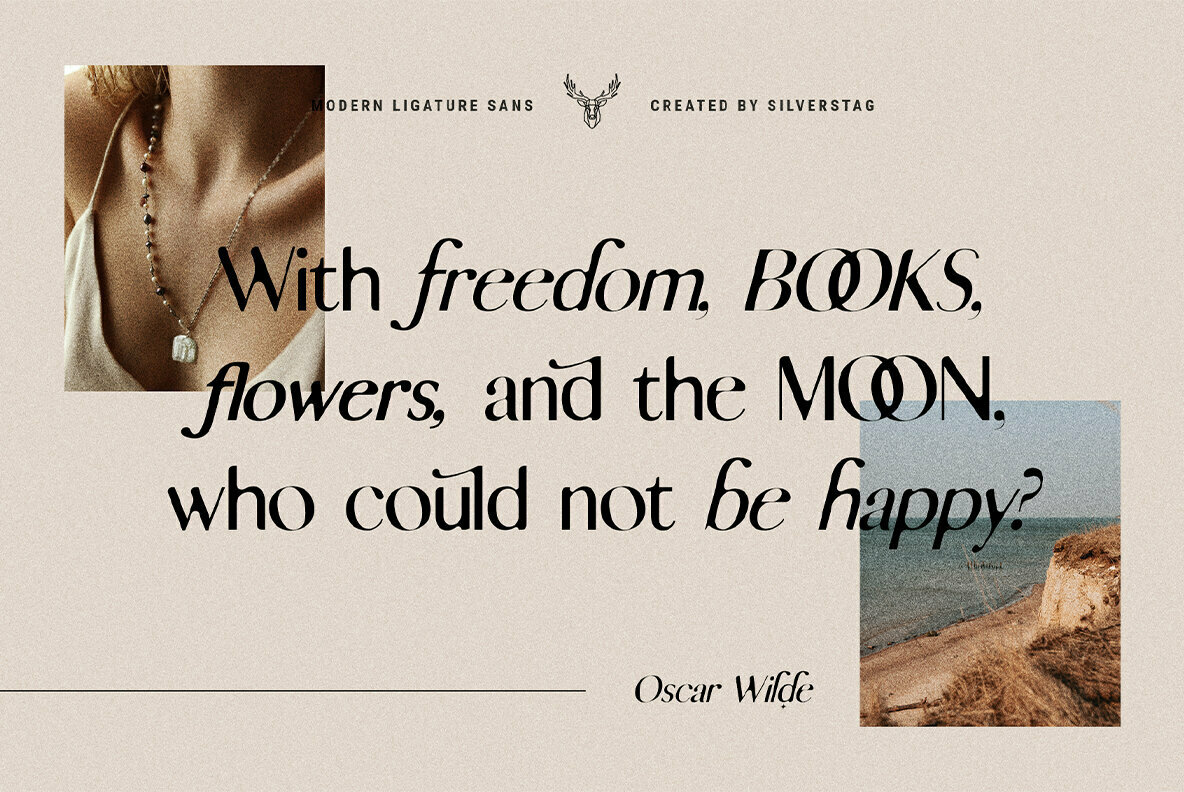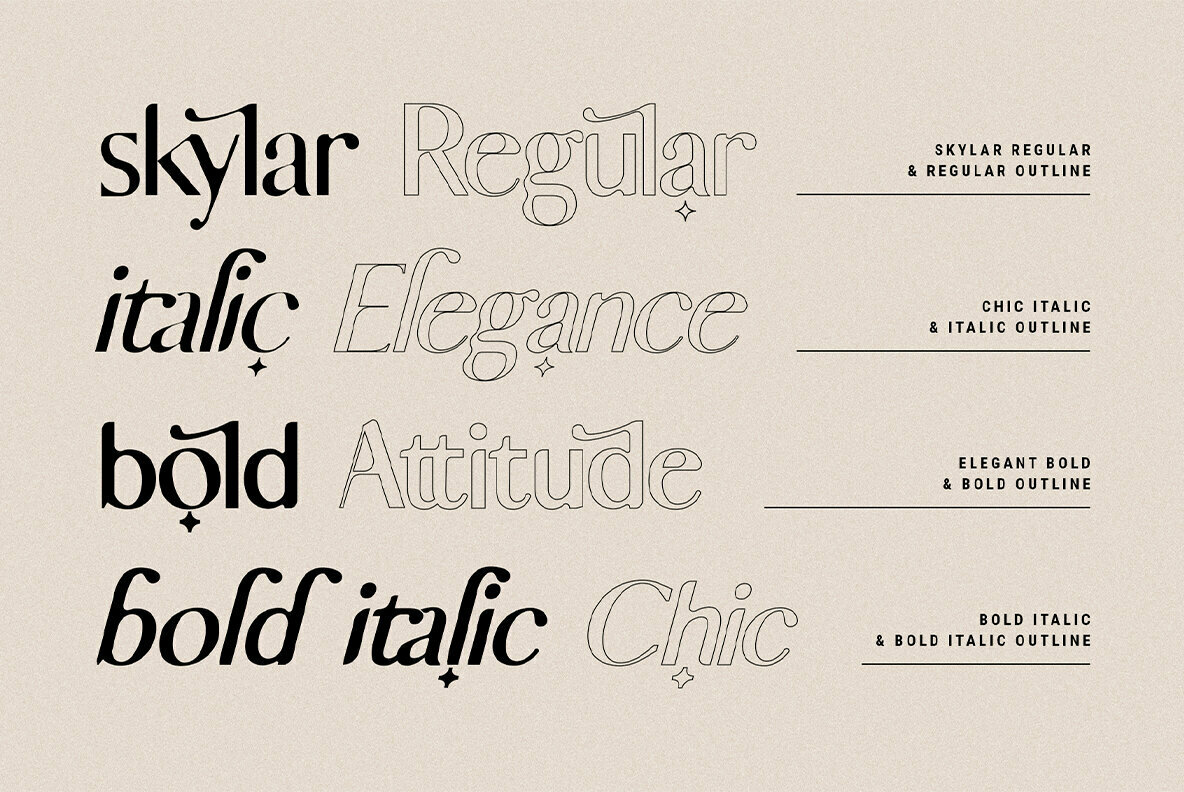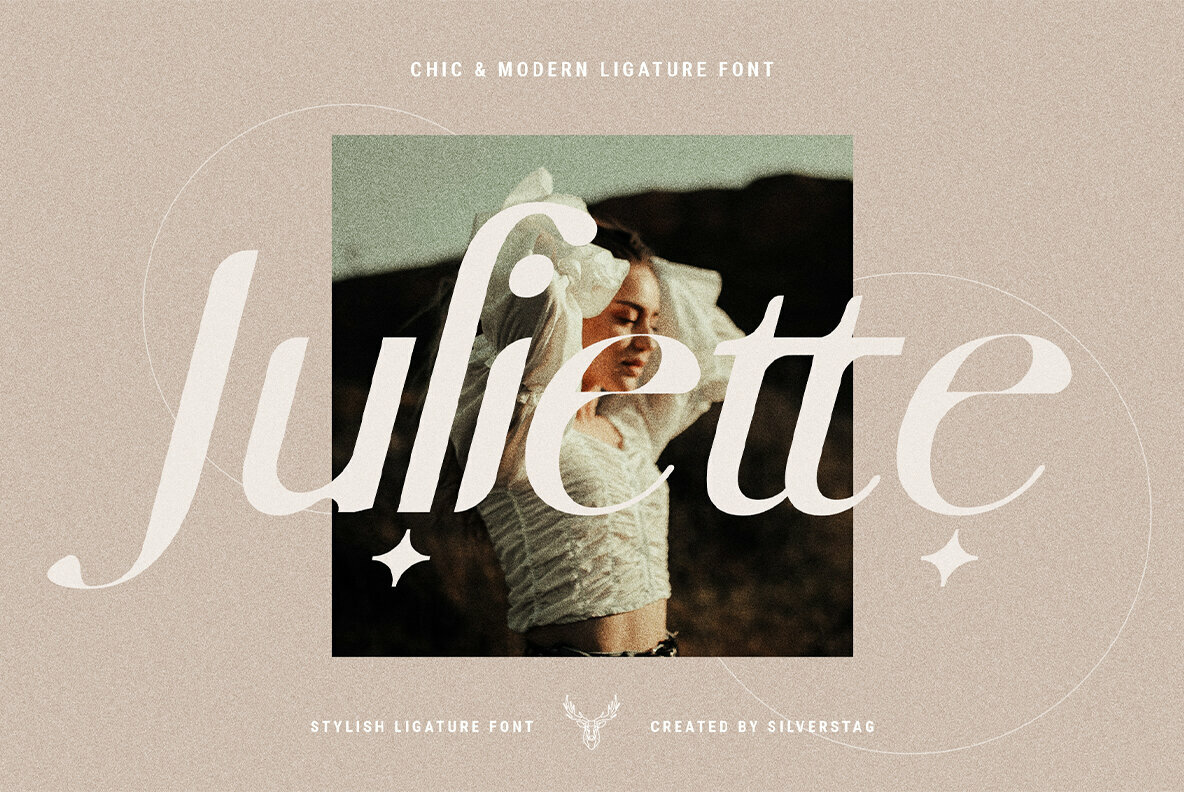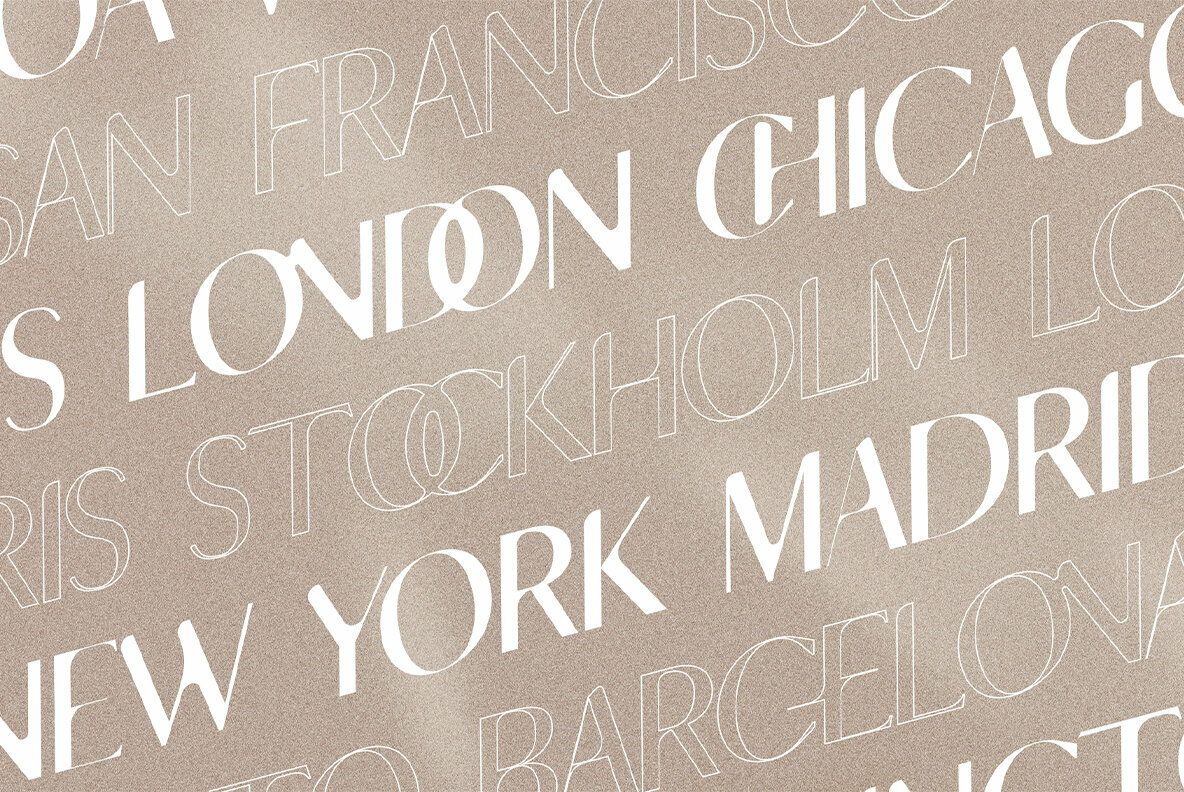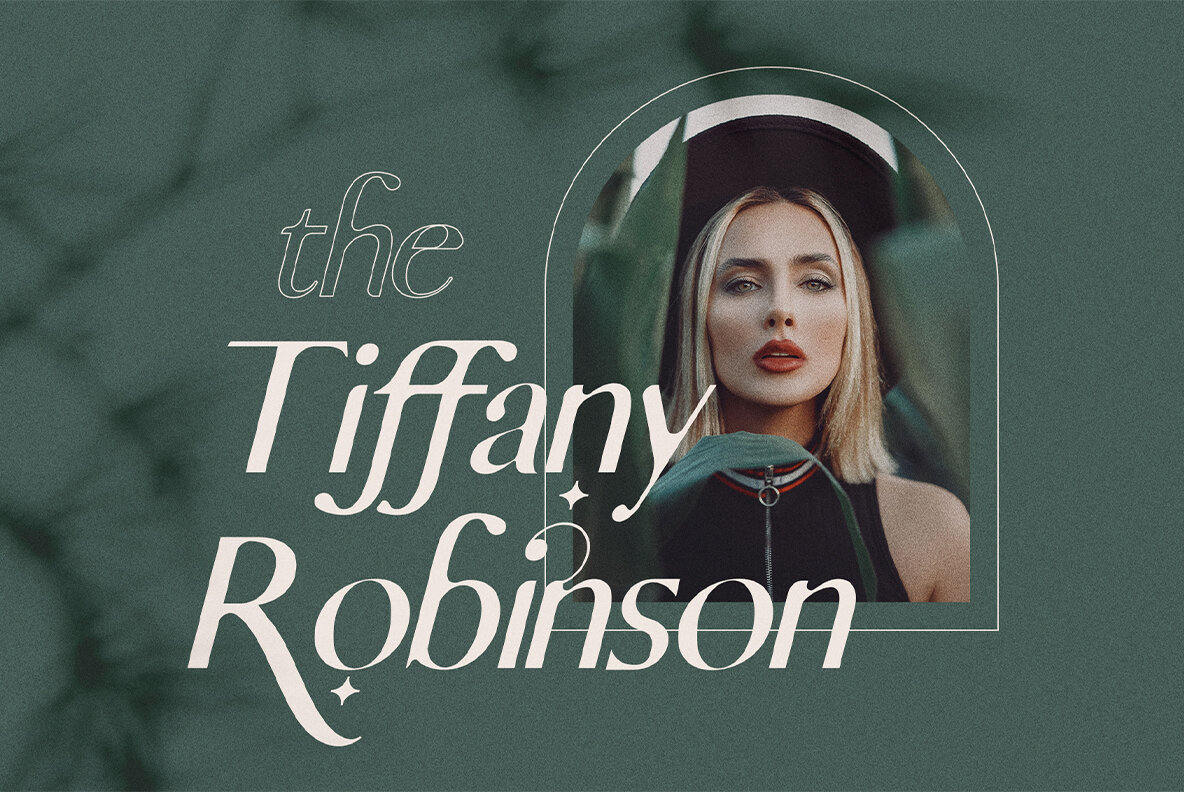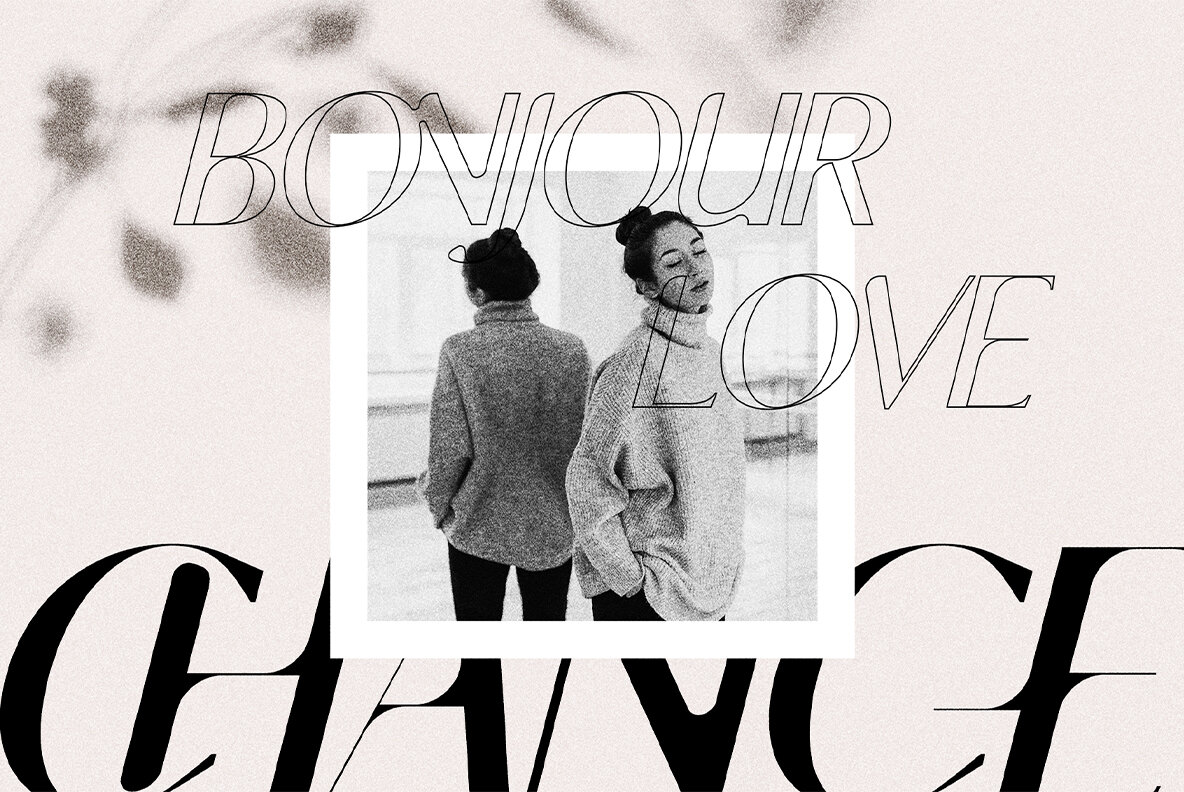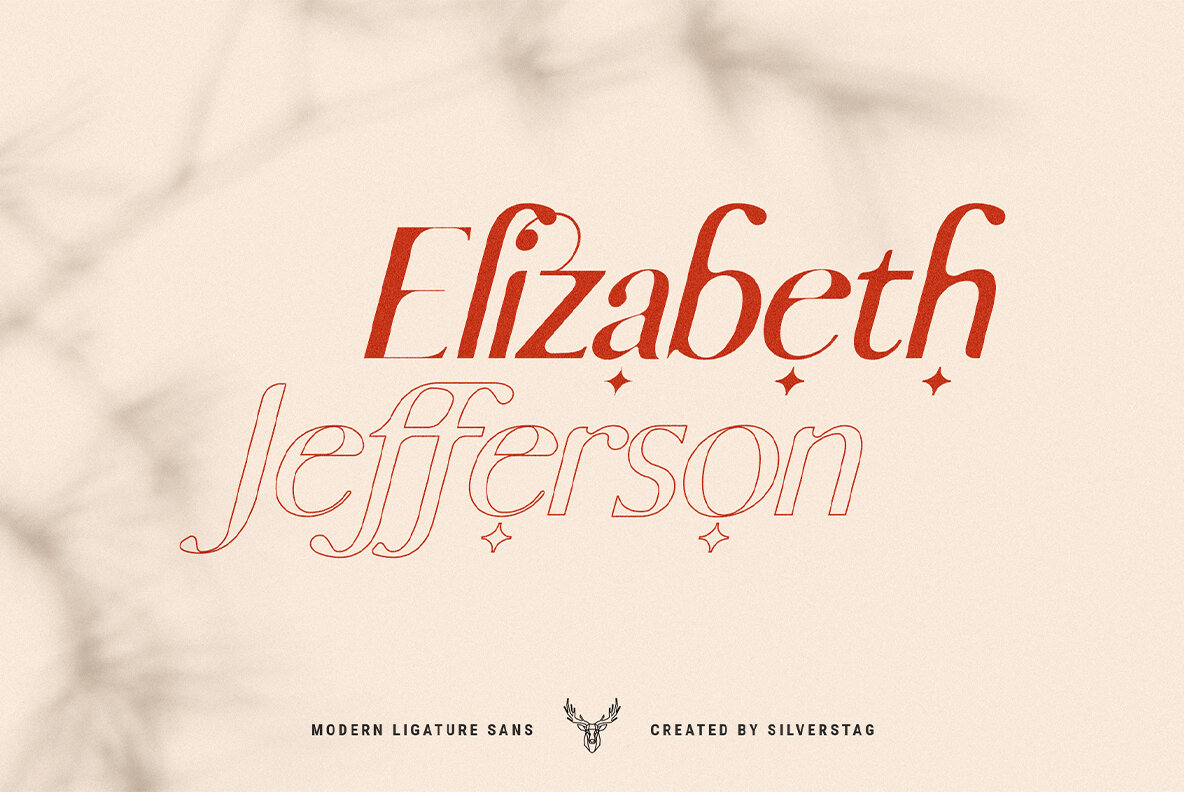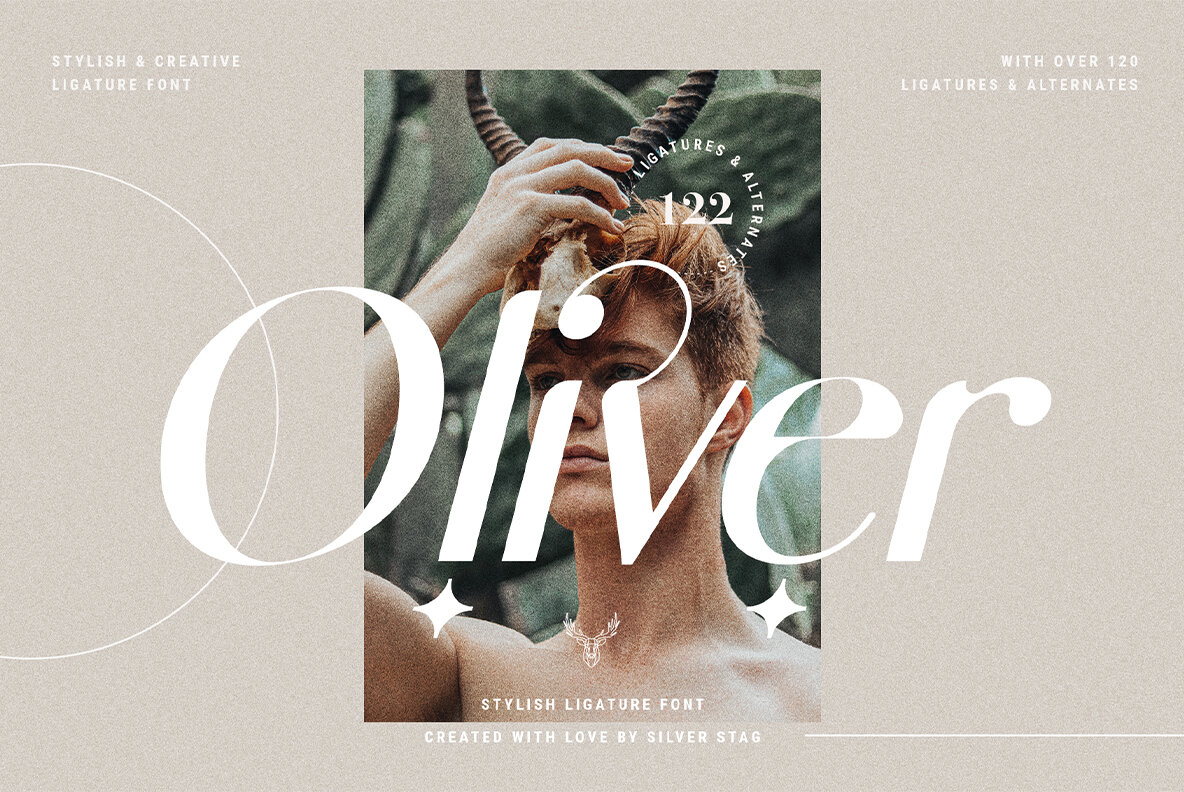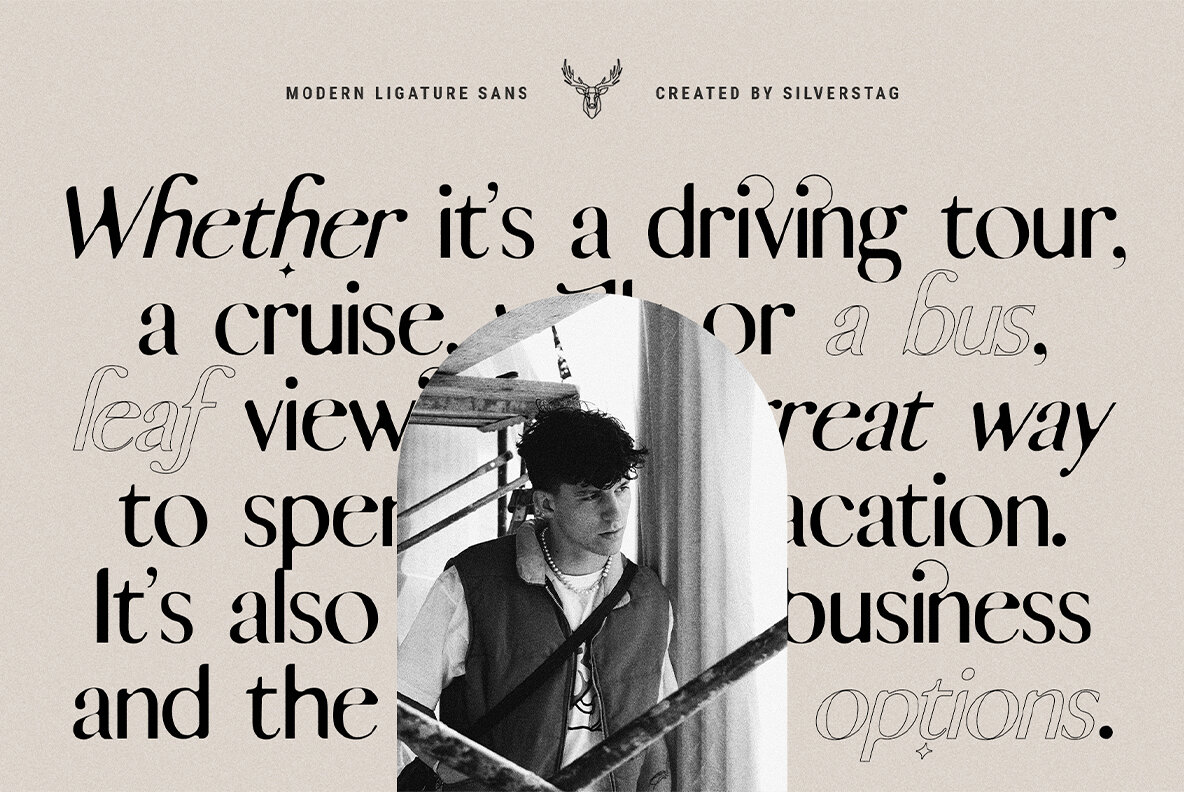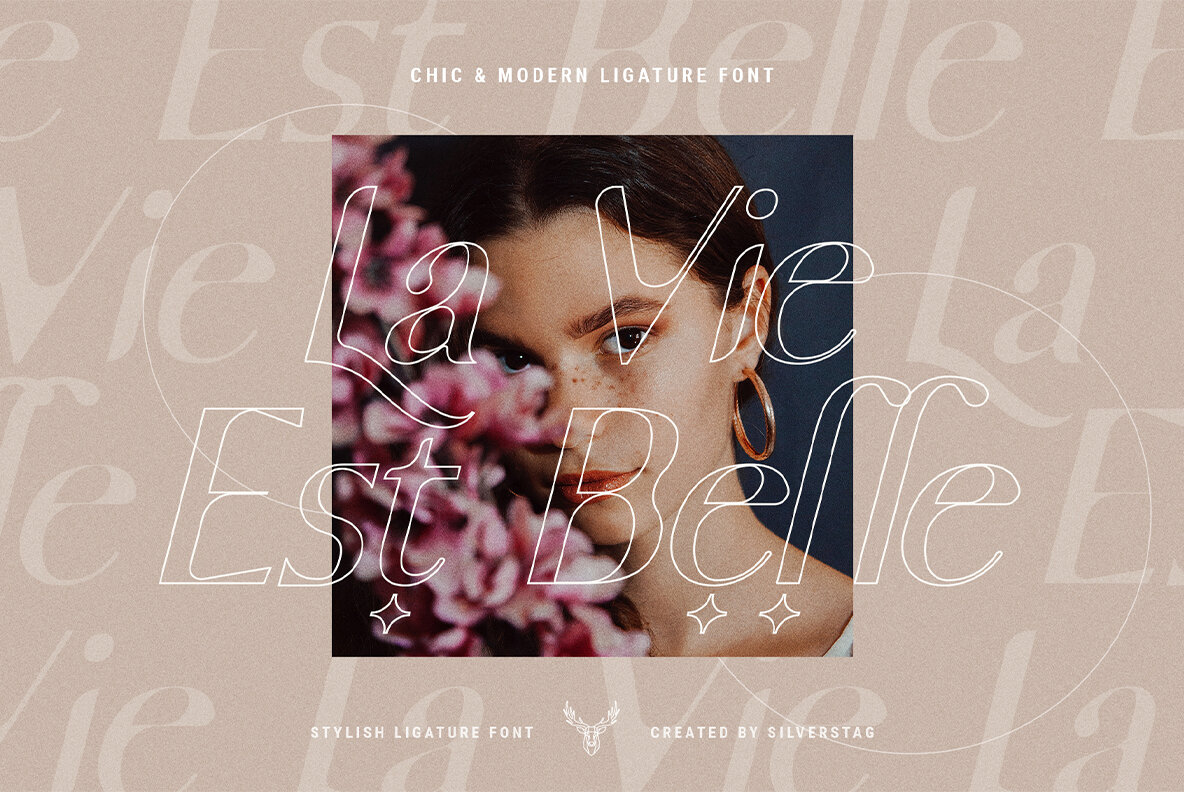
skylar is a brand new and unique sans font I have been exploring and creating for quite some time now. I wanted to create a font that will work for everyone but at the same time offer unique ideas and elements. I have created a modern sans font with 122 ligatures and alternate letters. If you check out the screenshots above you will see you can use the font for your logo projects, website designs, magazines, and any other kind of graphic design.
With it's unique and creative ligatures skylar stands out and will make your projects stand out as well. just have a look at the "ky" ligature on the first picture and you'll see what kind of potential it has.
The following letters are included: A À Á Â Ã Ä Å C Ç D Ð E È É Ê Ë I Ì Í Î Ï N Ñ O Ø Ò Ó Ô Õ Ö U Ù Ü Ú Û W Ŵ Y Ý Ÿ Ỳ Ÿ Æ Œ ß Þ þ and many many more, in uppercase and lowercase so skylar sans supports a huge number of languages.